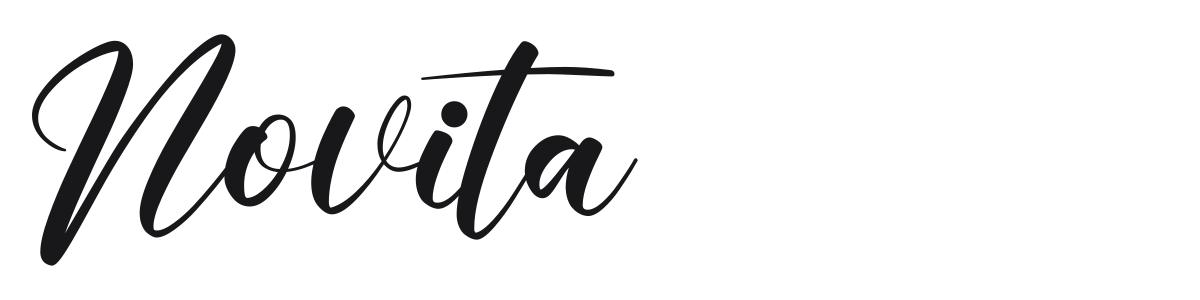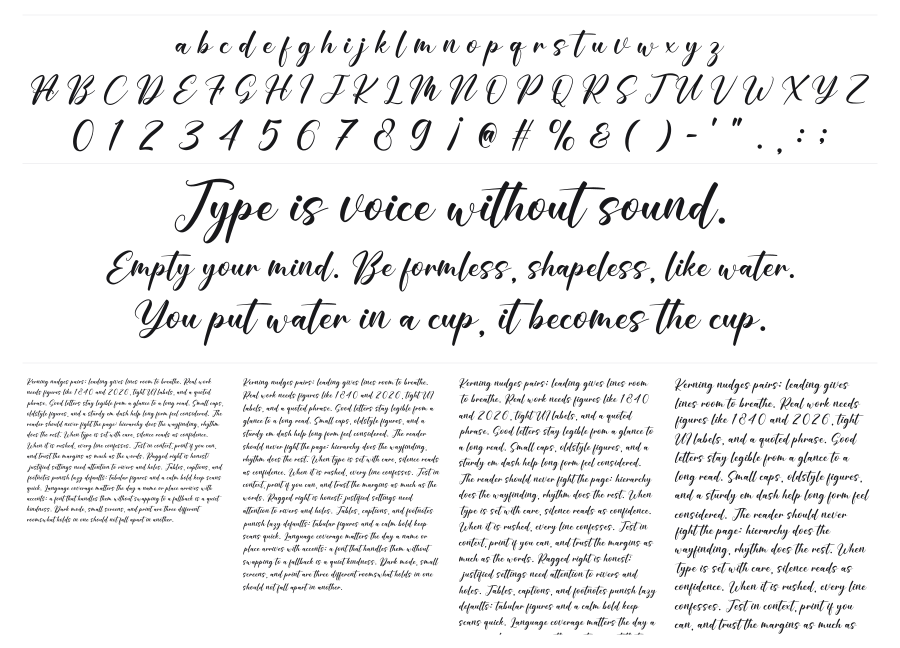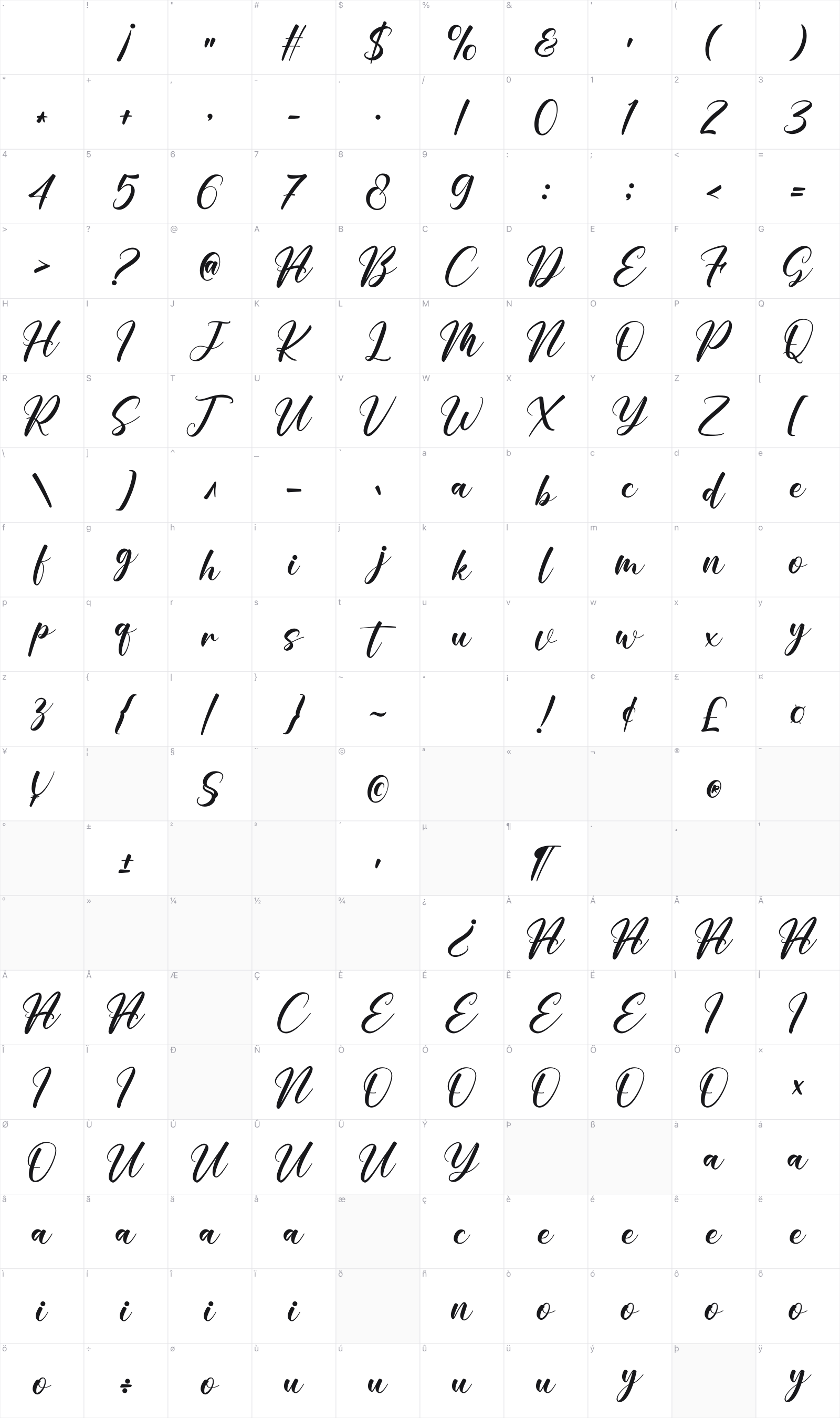
Novita
Novita is a contemporary casual script with flowing connected strokes and a lively bounce that feels hand-lettered without being rough. Moderate stroke contrast between thick downstrokes and hairline upstrokes gives it a polished calligraphic quality. It suits wedding stationery, branding, packaging, and lifestyle projects that call for warmth and personality.